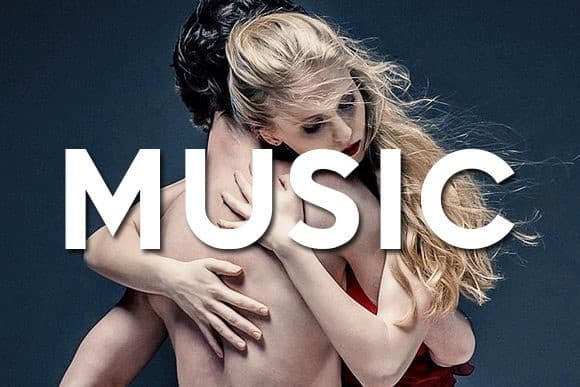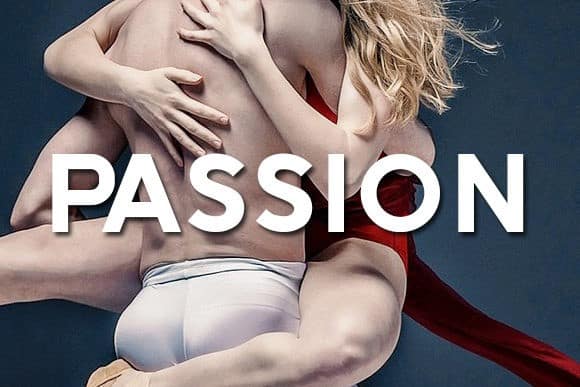
Dance Sans Serif Font
Dance Sans Serif Font is a special font for your all-caps logotype. It’s designed and shared by vladimirnikolic. It’s an simple yet powerful sans serif font that will look amazing on every t-shirt, poster of flyer. Add it to your most creative ideas and notice how it makes them come alive!